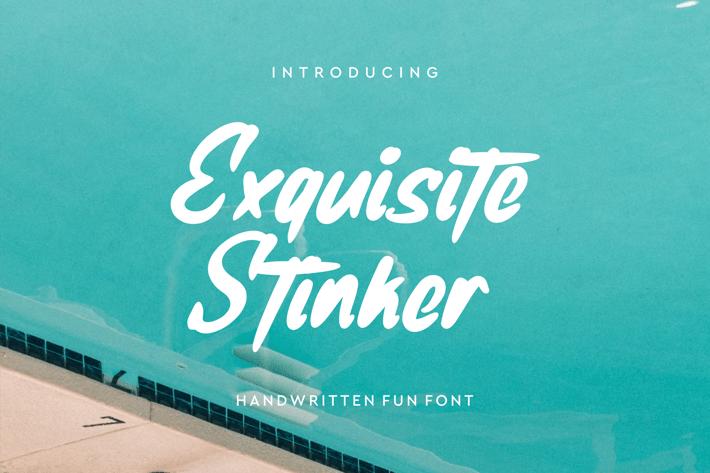
Exquisite Stinker Font
Introducing our new product Exquisite Stinker Font - Modern Font
Exquisite Stinker Font - Modern Font is a bold and authentic display font. The font is suitable for any branding project like logo, esport, and many more. outstanding in a wide range of contexts.